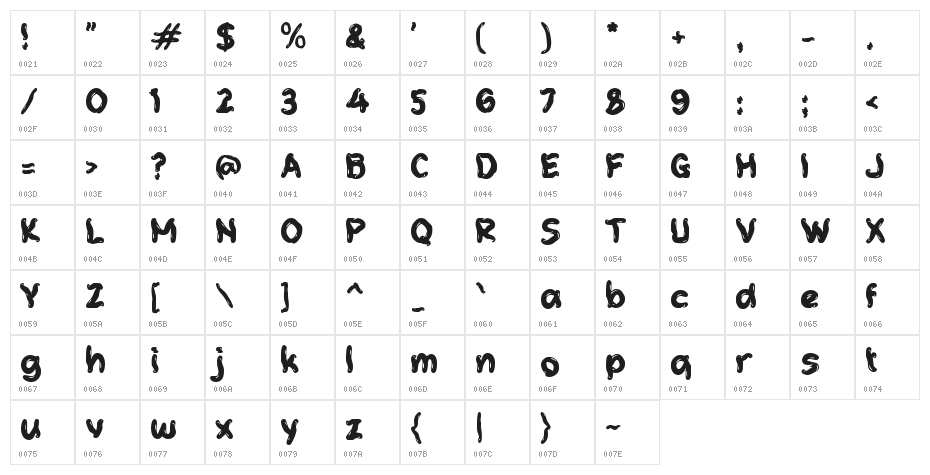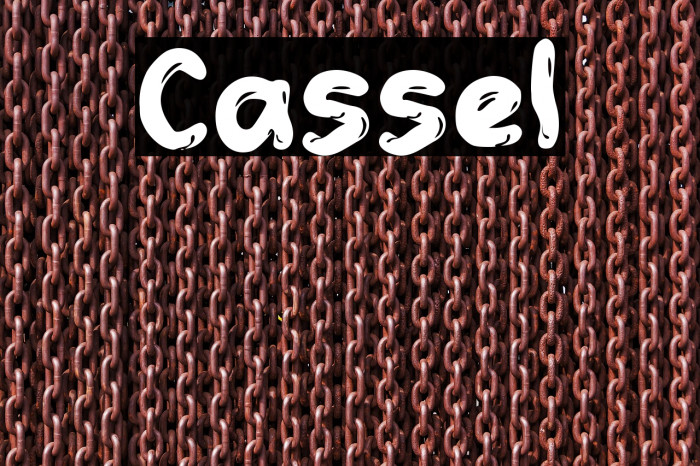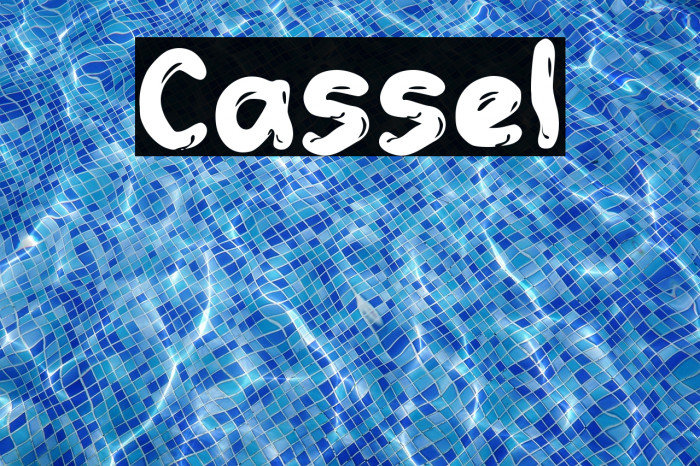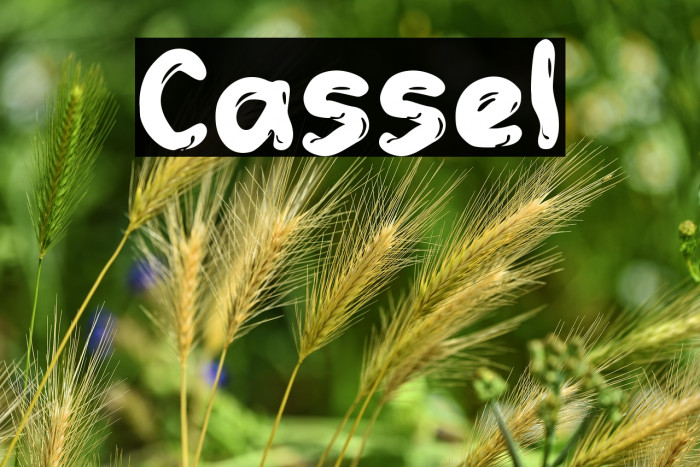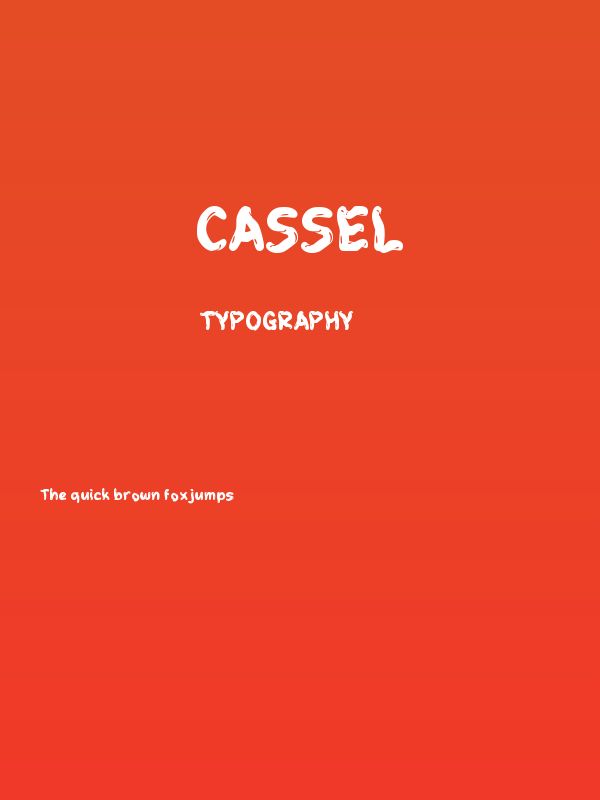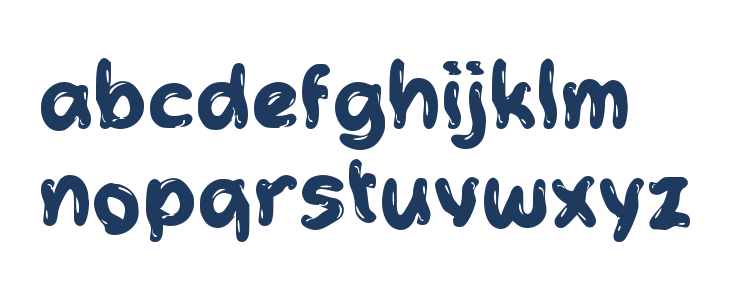
Cassel Font
Cassel Description
This font exhibits a bold and playful style, characterized by its thick, rounded strokes and a slightly irregular, hand-drawn appearance. The letters have a whimsical quality, with varying stroke widths that add a dynamic and energetic feel. The uppercase and lowercase letters maintain a consistent style, while the numbers and special characters complement the overall aesthetic. This font's unique and eye-catching design makes it suitable for projects that require a fun and informal touch.
| Proposed Projects | Ideal for children's books, playful branding, posters, and creative invitations. |